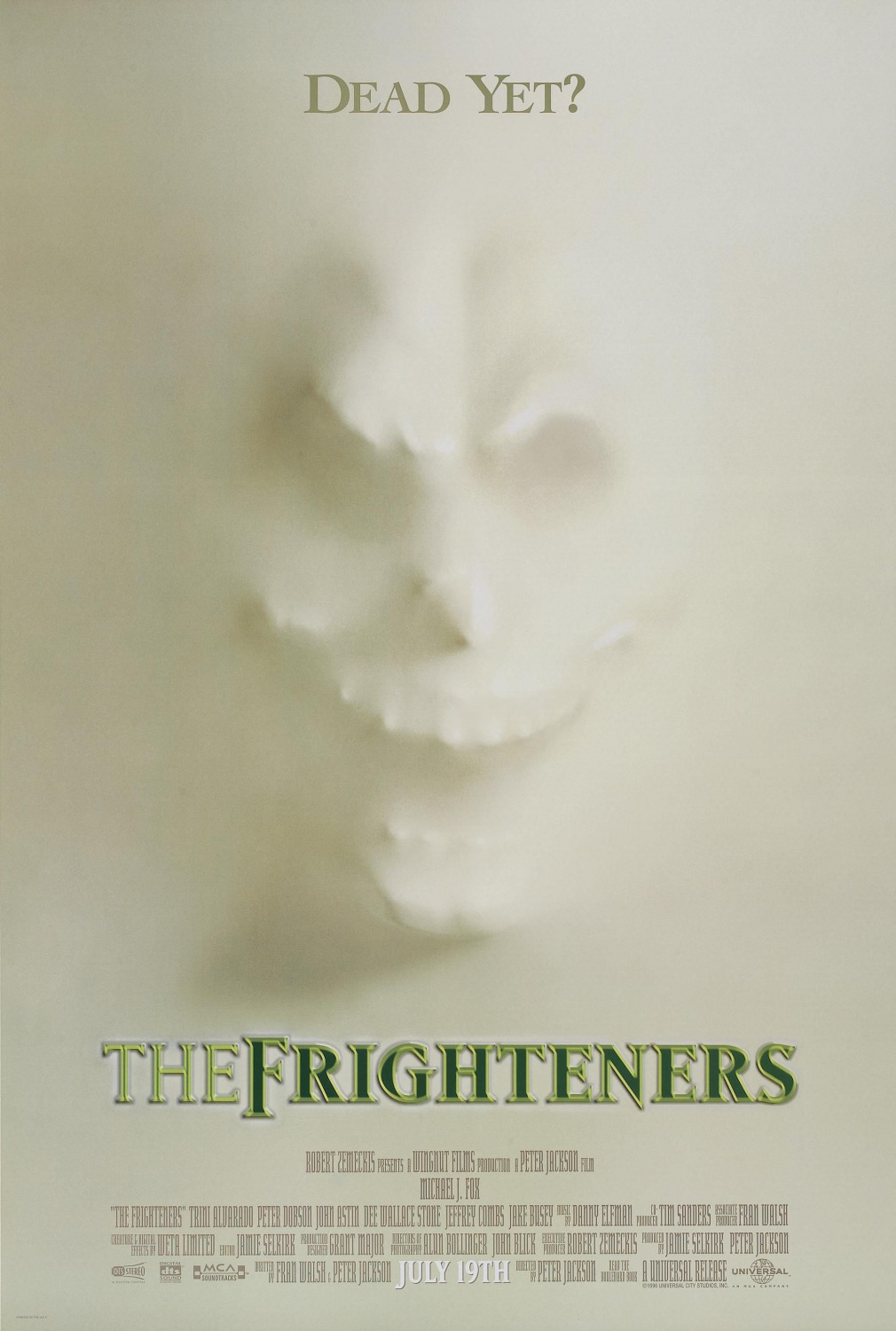
The Frighteners Font
Fonts in UseThe Frighteners is a 1996 horror-comedy film directed by Peter Jackson, starring Michael J. Fox as a psychic con artist who teams up with ghosts to stop a serial killer. The film received positive reviews for its unique blend of horror and humor, and its groundbreaking use of CGI technology.
Emigre's Matrix typeface was utilized as the film's title font. Initially launched in 1986 by Emigre, Matrix is a serif typeface with a distinctive wedge-shaped design. In 2007, an updated version called Matrix II was introduced.